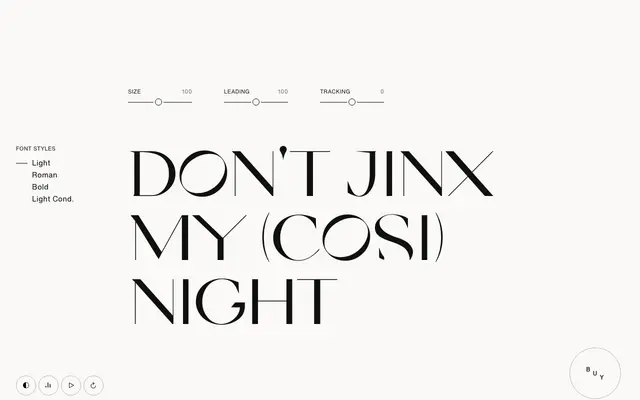
Cosi Times
Nikolas Type · Nikolas Wrobel · 2017
An uppercase-only display serif by Nikolas Wrobel, kerned by hand to keep an intentionally imperfect, human quality.
Three weights plus a condensed cut make up this display-only family, restricted to uppercase and figures. Wrobel deliberately avoided a systematic approach to spacing and kerning, giving the typeface a warmth and irregularity that sets it apart from more mechanical display serifs. At 163 glyphs across 32 languages, it covers extended Latin for international headline work.
An uppercase-only display serif with warm, humanist qualities, deliberately crafted without a rigid system to produce an intentionally imperfect, expressive character suited to headline use.